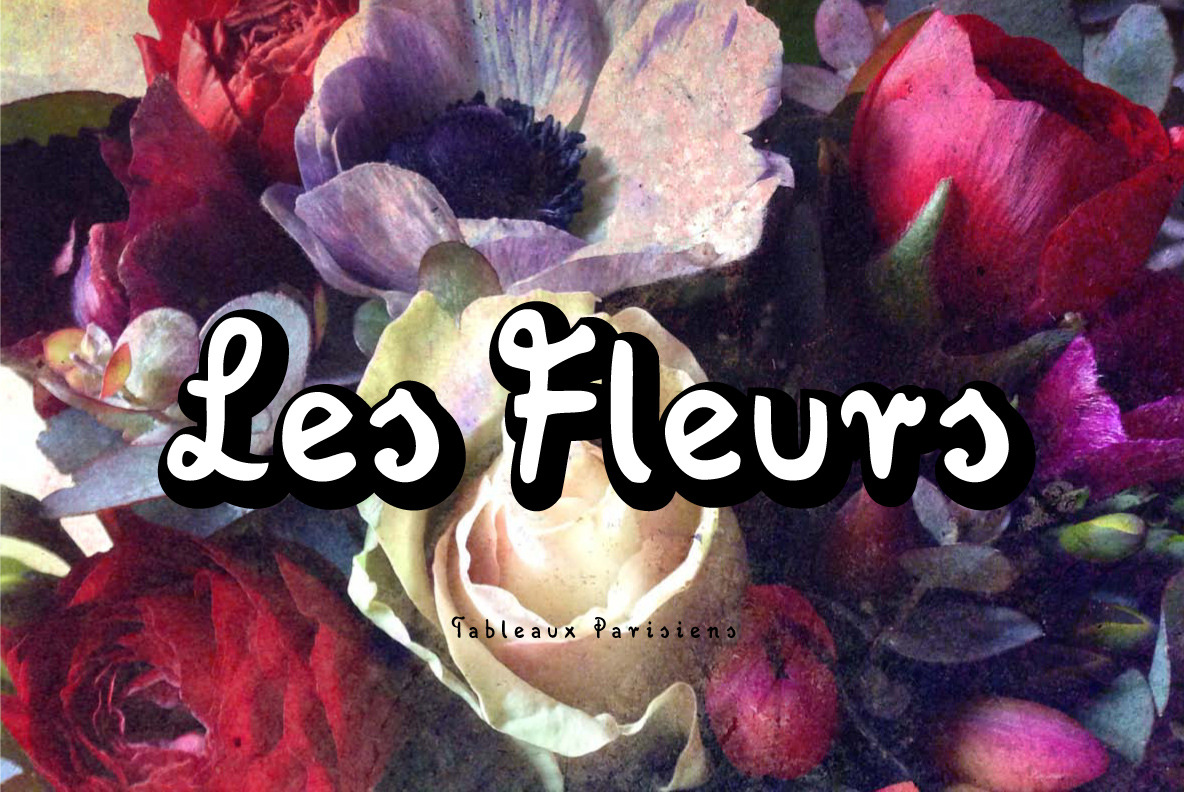
DeBouffet Font Family
DeBouffet is a decorative, handmade font, it offers 2 alternates for each letter and number. Comes with multi-language support. The family includes 2 font files: DeBouffet Regular and DeBouffet Italic.